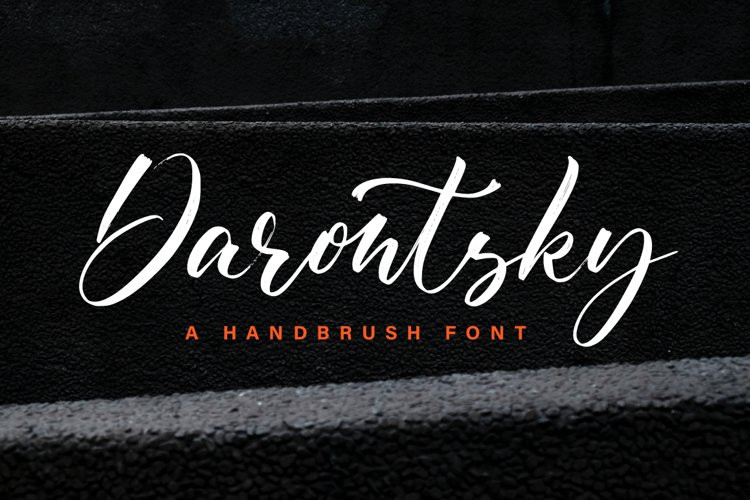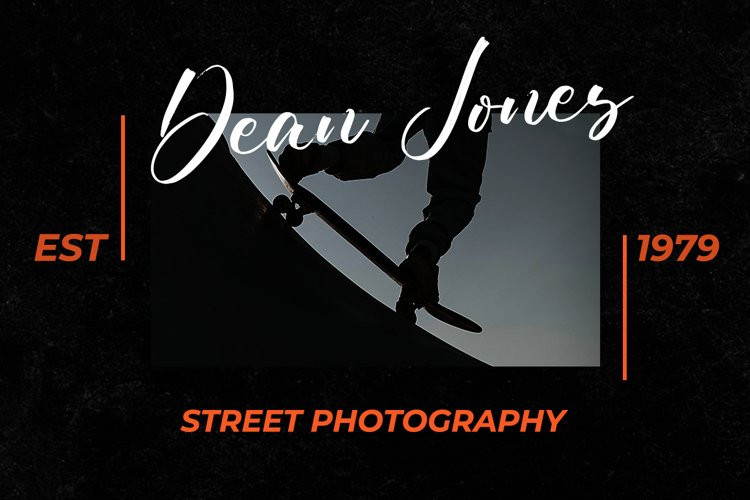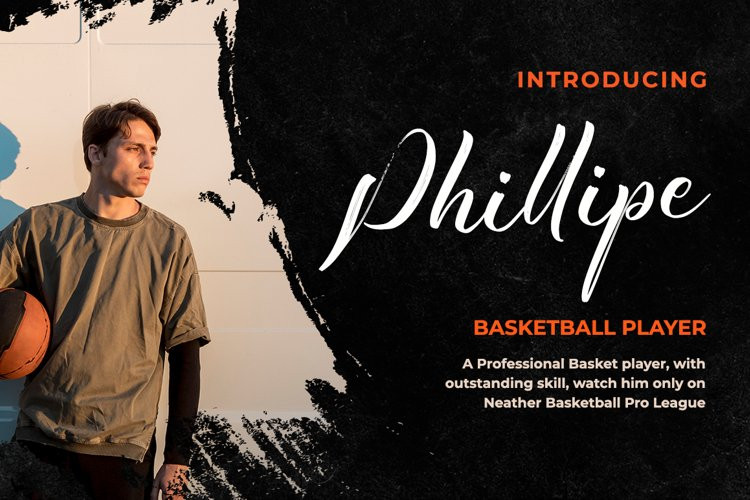
Darontsky Font
Darontsky is a brushed script font featuring charming, playful characters that seem to dance along the baseline. Add this font to your most creative ideas, and notice how it makes them stand out!